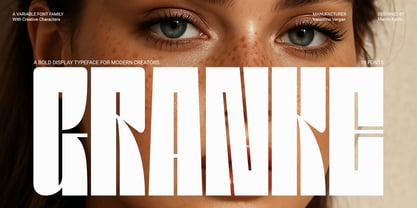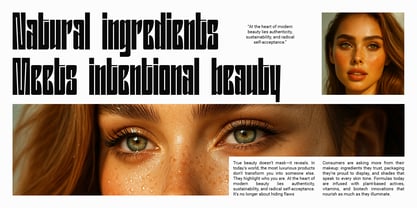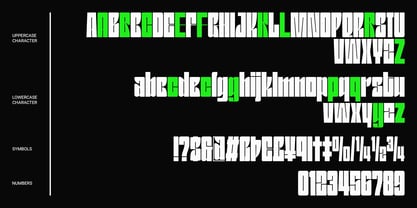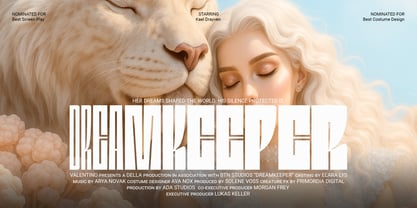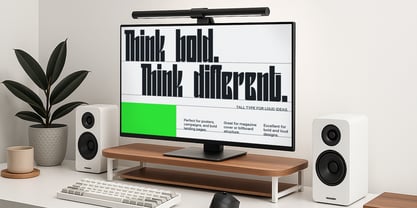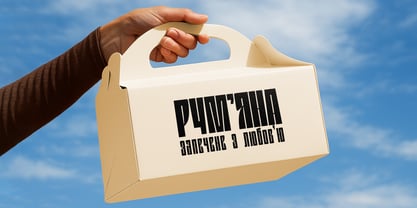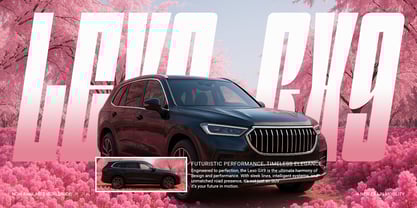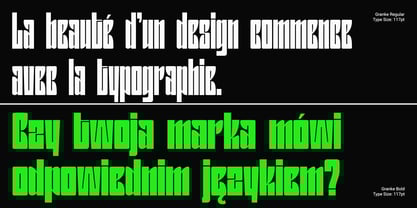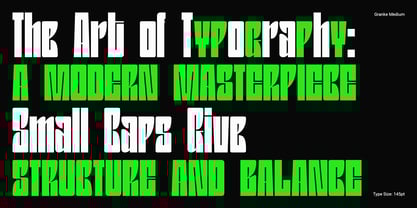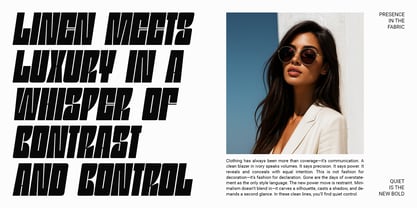
Granke
by Valentino Vergan
The Granke Font Family was designed by Martin Katibi and published by Valentino Vergan. Granke contains 19 styles and family package options. More about this family
Granke is a tall, confident display font designed to give your work visual power and clarity. With 9 weights and matching obliques, true small caps, extended Latin, Cyrillic support, and a variable font included, Granke is made for professionals who need both versatility and creative expression.
Built for branding, editorial, packaging, web, and advertising design, Granke stands out with its bold forms, sharp alternates, and smart ligatures — making it perfect for designers creating standout identities, campaigns, and trendy layouts.
GRANKE IS IDEAL FOR:
· Branding & Identity Design.
· Editorial & Magazine Typography.
· Packaging & Product Design.
· Advertising Campaigns.
· Digital & Web Typography.
· UI/UX Layouts & Headline Systems.
Designers: Martin Katibi
Foundry: Valentino Vergan